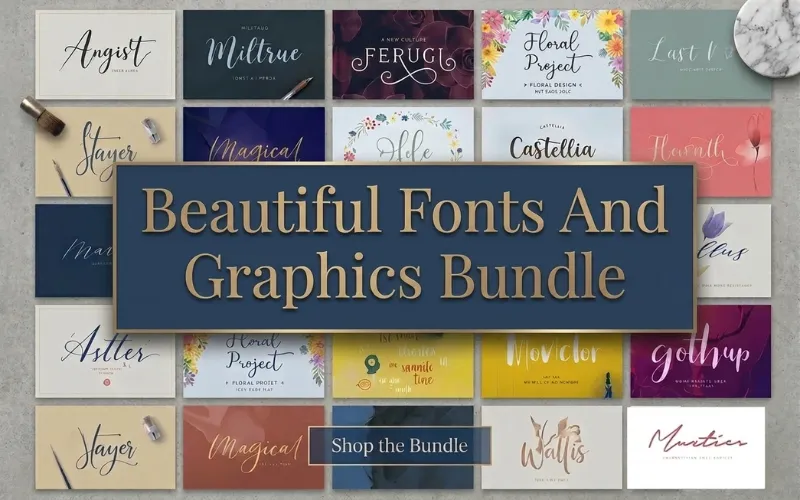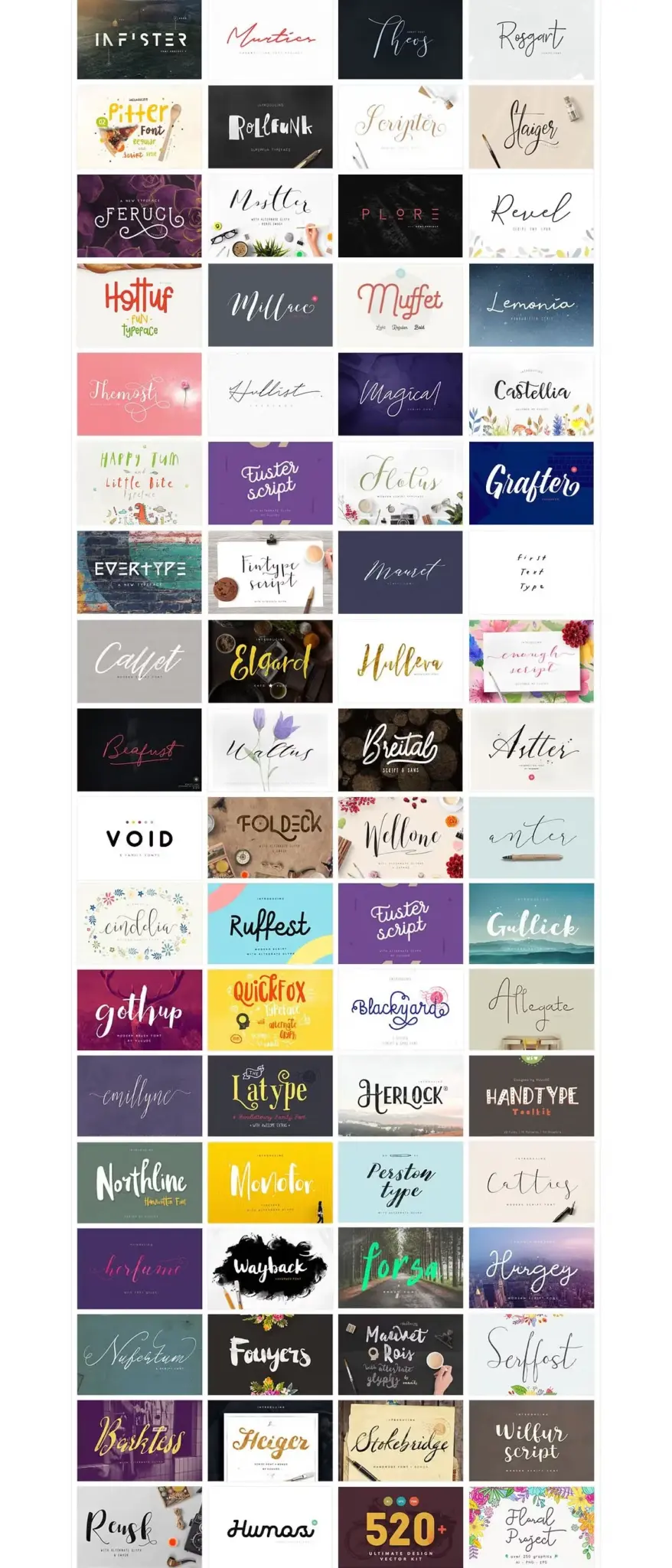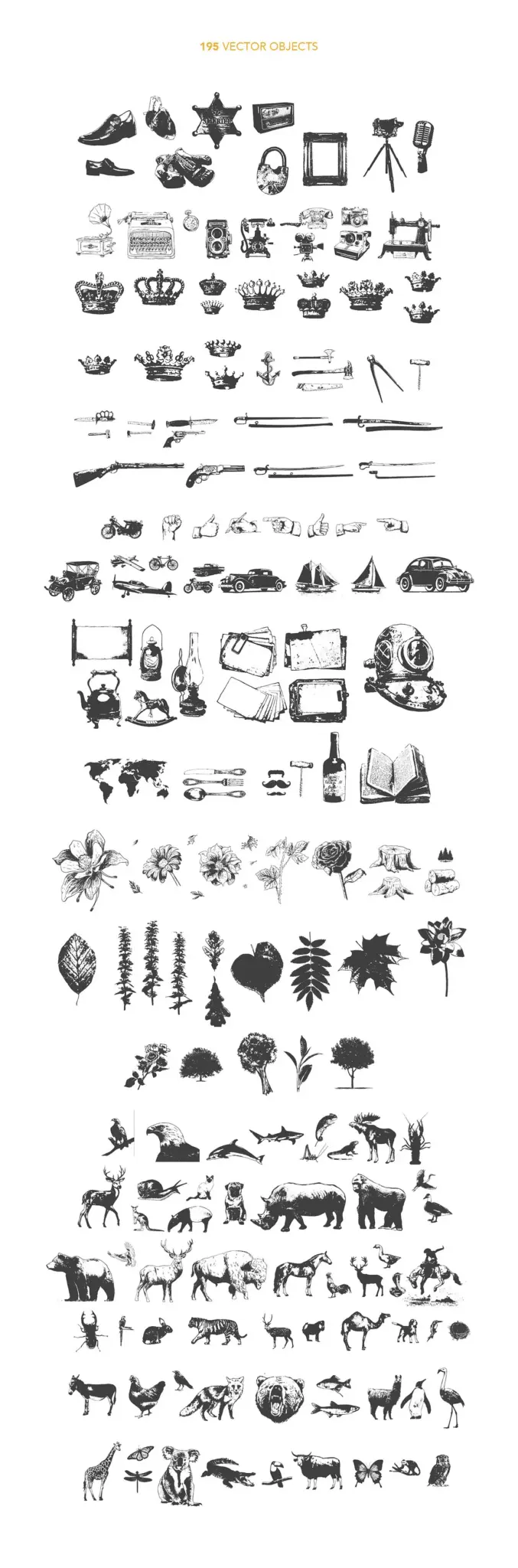
Beautiful Fonts And Graphics Bundle
This bundle includes a mix of script, handwritten, sans-serif, and serif fonts, along with beautifully crafted design assets.
Each font in this bundle is designed to deliver personality and readability, while the graphics add depth and creativity to your projects.
This Beautiful Fonts And Graphics Bundle Includes:
98 Premium Fonts Covering:
- Elegant Script & Handwritten Styles
- Classic Serif Fonts
- Modern Sans Serif Fonts
- Bold Brush & Retro Designs
750+ Design Assets, including:
- Floral & Botanical Elements
- Wreaths & Arrangements
- Artistic Illustrations
- Versatile Graphic Elements
- Provides 98 premium fonts across multiple popular styles.
- Includes 750+ ready-to-use graphics for instant design creation.
Preview Of The Beautiful Fonts And Graphics:
- 98 Beautiful Fonts: Script, Handwritten, Sans-serif, & Serif Styles
- 750+ Graphics: Flowers, Wreaths, Bouquets, & More
- Categories Of Fonts Included: Script & Sans Serif
- Types Of Fonts Included: Brush & Retro
- Special Characters Included In The Fonts: Alternatives & Ligatures